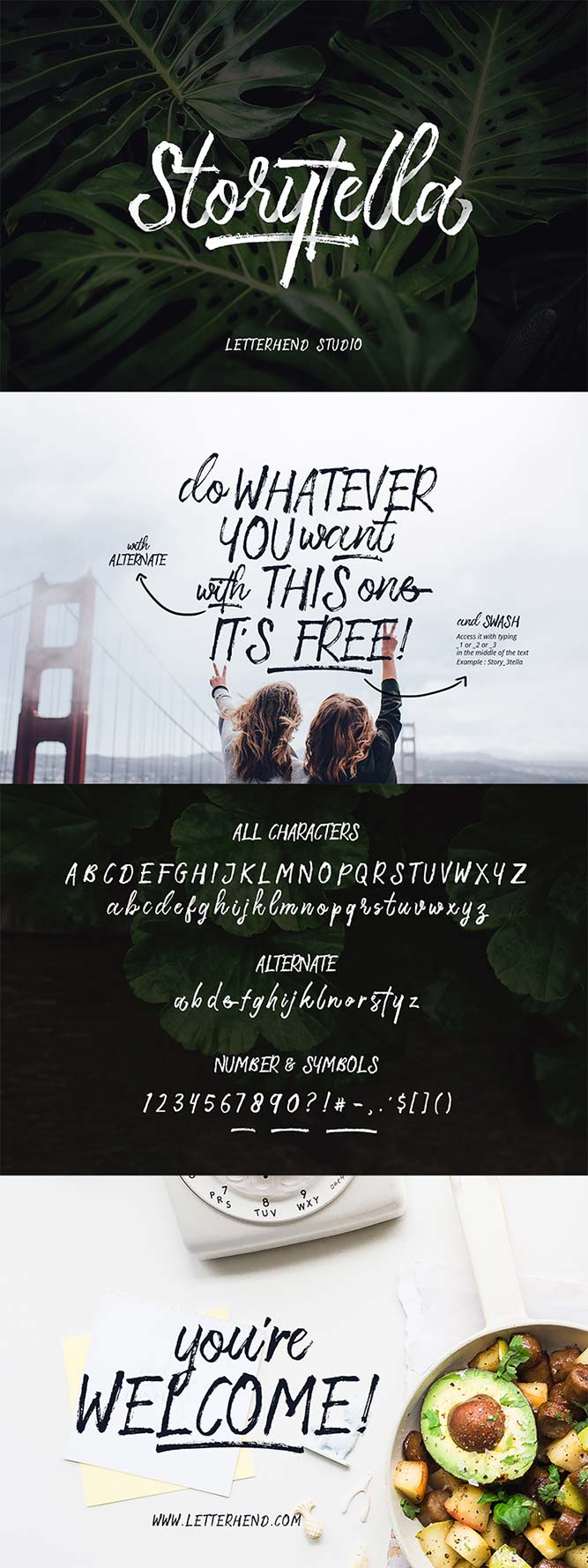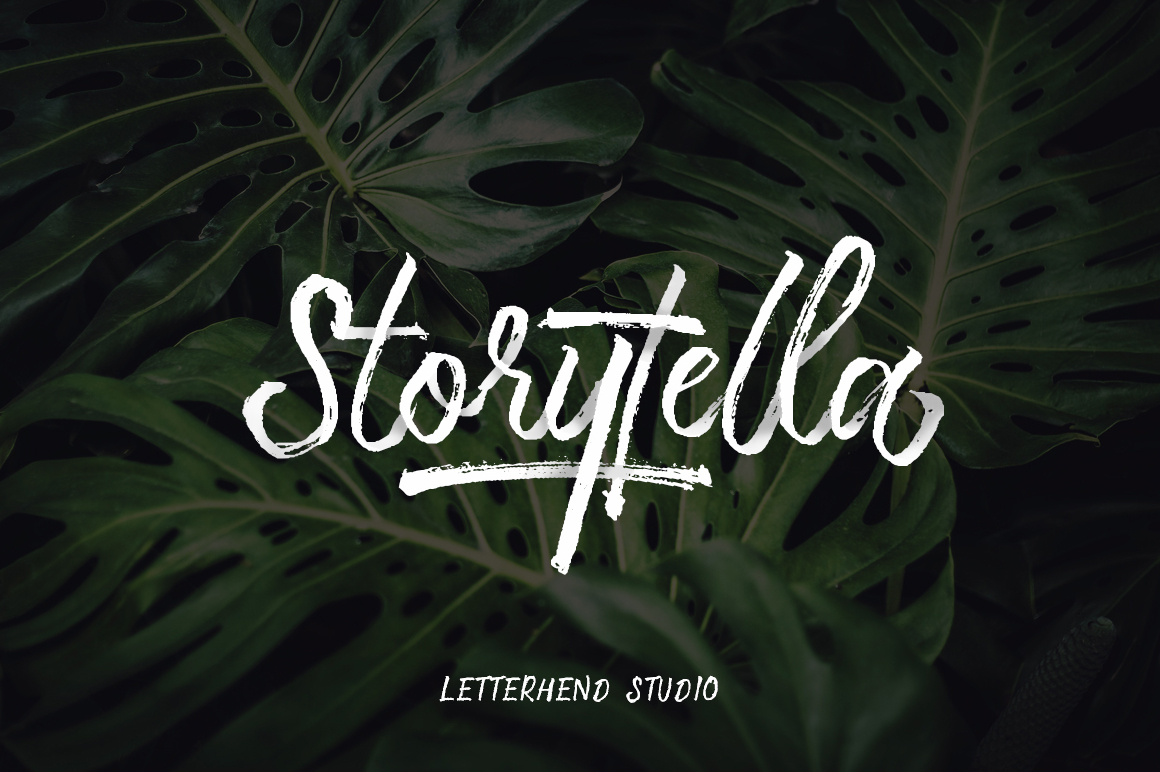
Storytella is an amazing handwritten brush font. It’s come with a lot of alternate characters and swashes. And the good news is that you can download this font for free. Big thanks to the generosity of Letterhend Studio for sharing their awesome typeface with us.